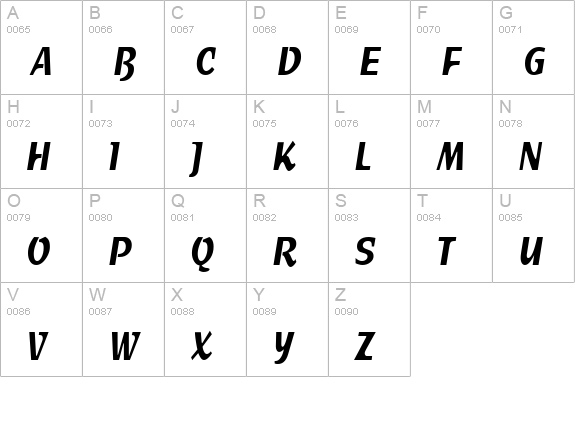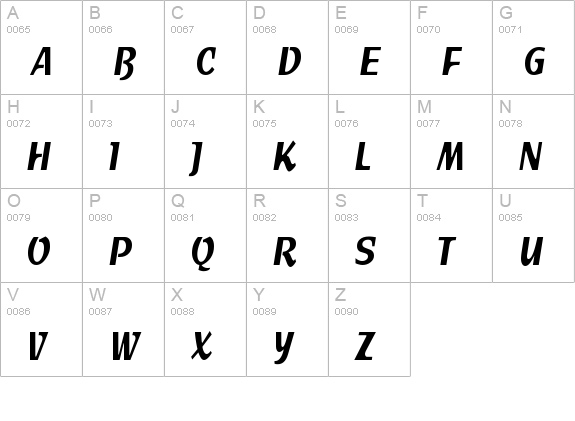
SprintExtraCond Regular Font Details
SprintExtraCond Regular is the standard, neutral variant in the SprintExtraCond typeface family \xE2\x80\x94 well suited to general body text, paragraphs, and standard typographic work.
Introducing SprintExtraCond Regular font, a versatile typeface that effortlessly combines elegance with modernity. This font is perfect for a wide range of design projects, from branding and advertising to packaging and editorial layouts. With its clean lines and subtle curves, SprintExtraCond Regular offers a sense of sophistication that is sure to enhance any design. Its well-balanced letterforms and legible spacing make it a pleasure to read, ensuring clear communication and easy readability. What sets SprintExtraCond Regular apart is its remarkable versatility. Whether you're working on a sleek corporate identity or a bold headline, this font will adapt effortlessly to any design concept. Its flexibility allows it to shine in both print and digital media, making it a true asset for any creative professional. Furthermore, SprintExtraCond Regular is offered to you for free, exclusively at FontsMarket.com. This means that you can easily download and start using this font in your projects without any additional cost. So, why wait? Take advantage of this incredible opportunity and elevate your designs with the timeless beauty of SprintExtraCond Regular.